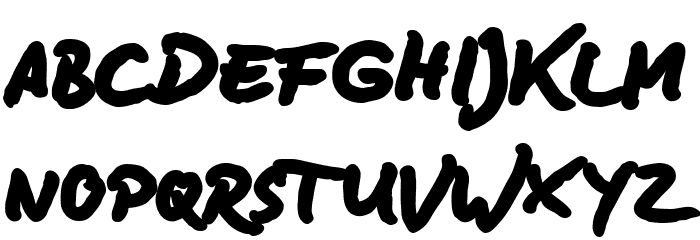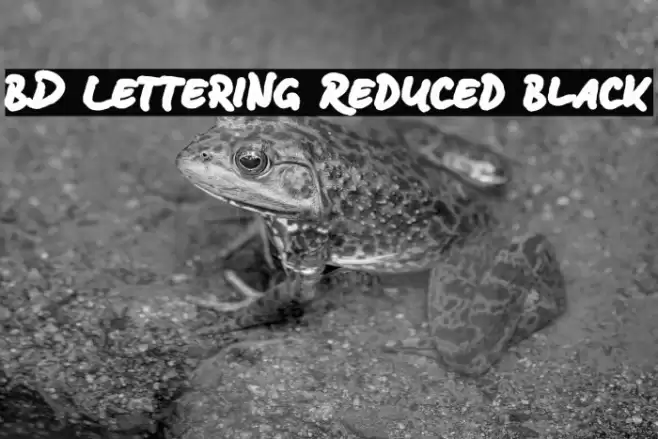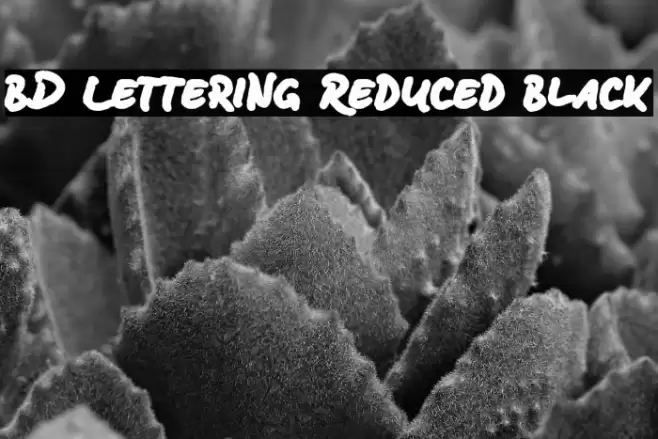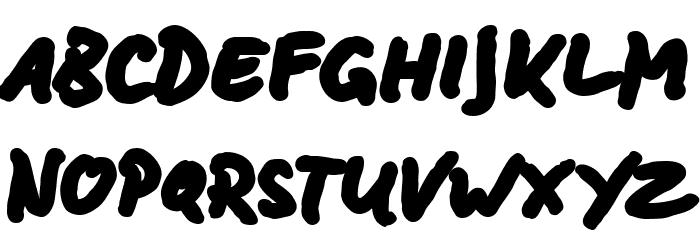
BD Lettering Reduced Black Font
This font features a bold, expressive style with a handwritten appearance. The characters are thick and rounded, giving a sense of fluidity and movement. The uppercase and lowercase letters maintain a consistent style, with a slightly playful and informal tone. The strokes are smooth and continuous, suggesting a brush or marker-like texture. This font is highly legible and stands out due to its boldness, making it suitable for attention-grabbing designs. The overall look is dynamic and energetic, perfect for creative projects that require a personal touch.
A bold, expressive handwritten font with a smooth, brush-like texture.
• Proposed Projects: Ideal for posters, branding, packaging, and any project that requires a bold, personal touch.
• Category: Handwritten
• Overall Style: Decorative
• Use Case: Logos, Headlines, Posters